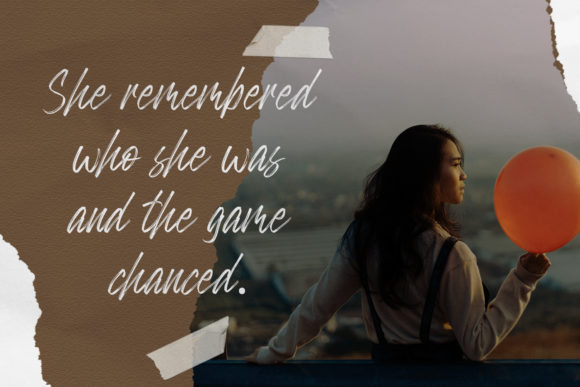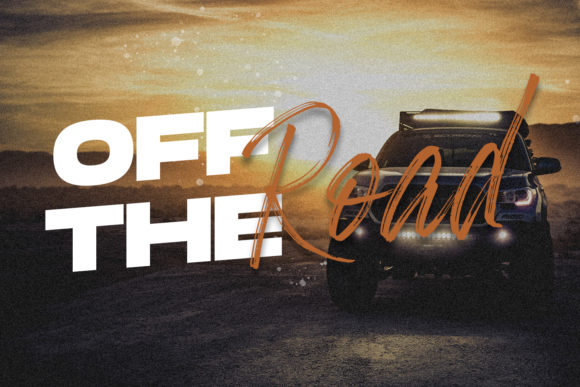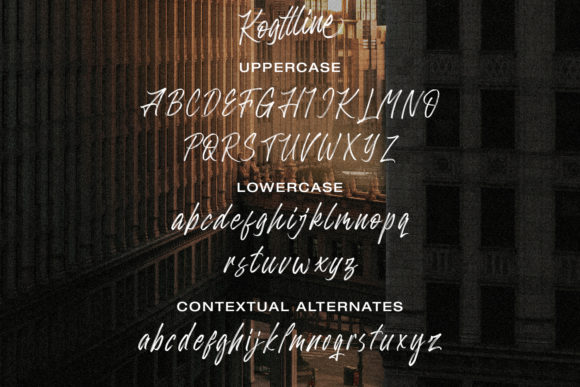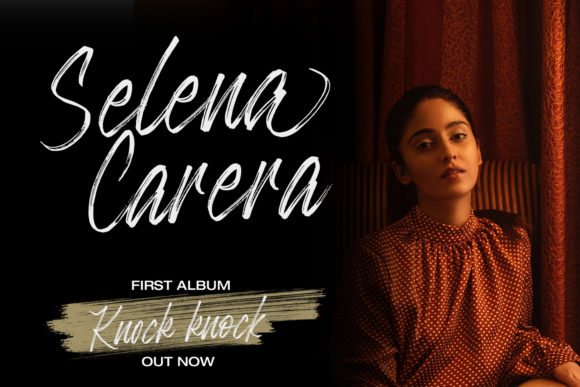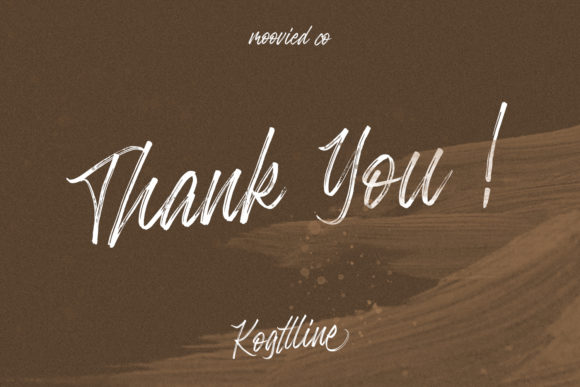
Introduction to Kogttline Font
Remember that moment when you stumbled upon the perfect font, and your creative project came to life? For designers, it’s a feeling that’s hard to describe, but it’s a mix of excitement, relief, and pride. You’ve been searching for the perfect match, and finally, you’ve found it. That’s exactly what the Kogttline Font offers – a stunning pairing of a brush pen and pencil that makes it look incredibly endearing and authentic.
As a valuable resource for designers, the Kogttline Font is a game-changer for any creative project. With its high-quality design and transparent background, it’s the perfect addition to your design toolkit. Whether you’re working on a logo, a poster, or a digital artwork, this font is sure to elevate your project to the next level.
Key Features of Kogttline Font
- High-quality, hand-drawn design resource ideal for creative projects
- Includes a transparent background, allowing for seamless integration into various design contexts
- Designed to be highly legible at various resolutions, from 72 dpi to 300 dpi
- Features a unique, cursive style that adds a touch of elegance to any design project
- Perfect for use in logos, typography, and other design elements where a high-quality, custom font is required
Honest Review: Kogttline Font
I recently stumbled upon the Kogttline Font and was eager to dive in and see what it had to offer as a design resource. After experimenting with it on a creative project, I was pleased with the results.
- ✨ High-quality design that’s perfect for modern and minimalist designs
- ✨ Includes a transparent background option for seamless integration into your design
- ⚠️ Limited font styles and weights, which may not be suitable for complex or detailed designs
- ⚠️ Not as versatile as some other fonts on the market, may not work well with certain typography combinations
Overall, I was impressed with the Kogttline Font’s clean and simple design. While it may not be the most versatile font, it’s a great choice for designers looking for a high-quality, modern font for their creative projects. With its transparent background and free download, it’s definitely worth checking out.
The Kogttline Font is ideal for:
1. Creating eye-catching graphics for social media.
2. Designing engaging presentations and reports.
3. Adding a touch of elegance to your website or blog.